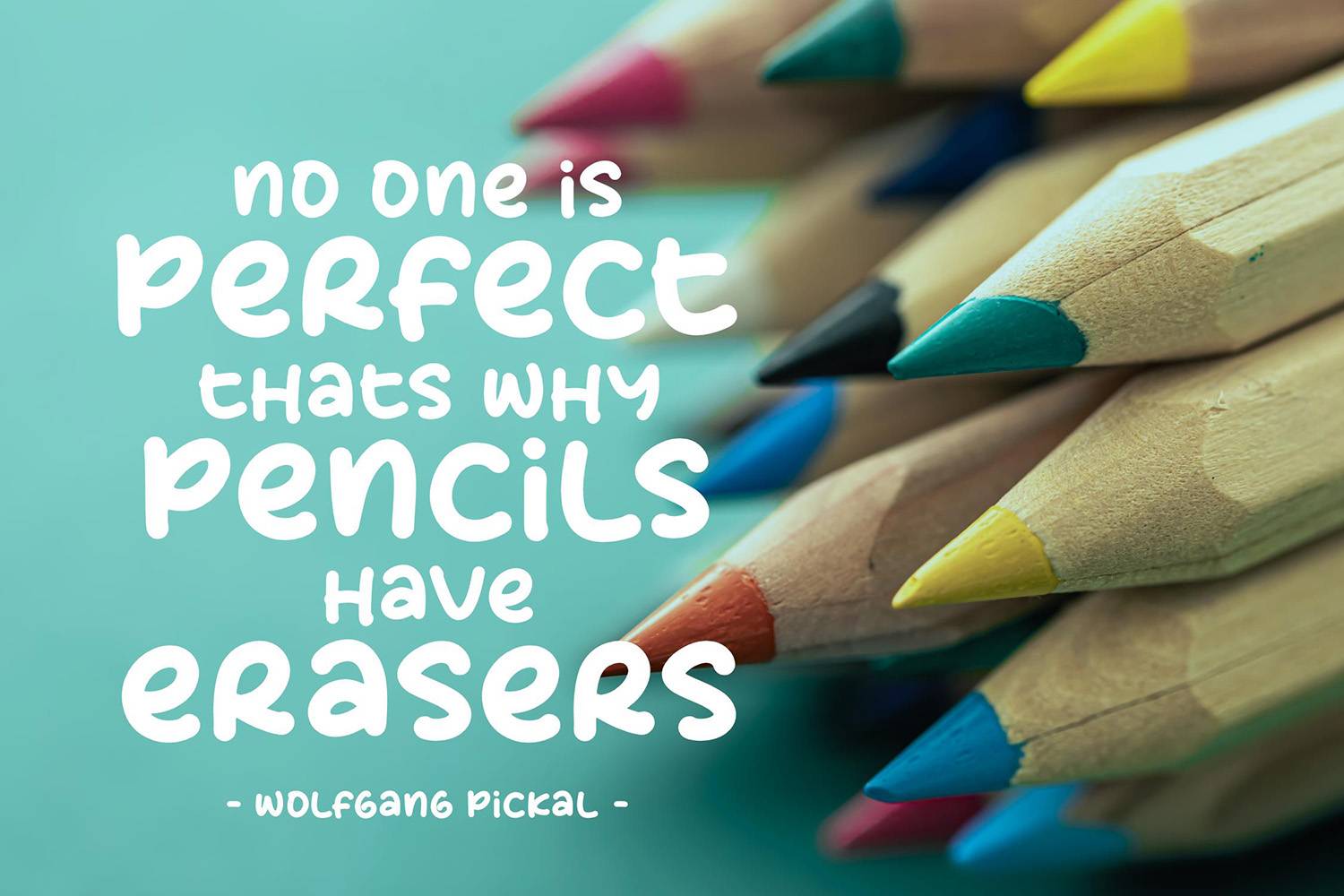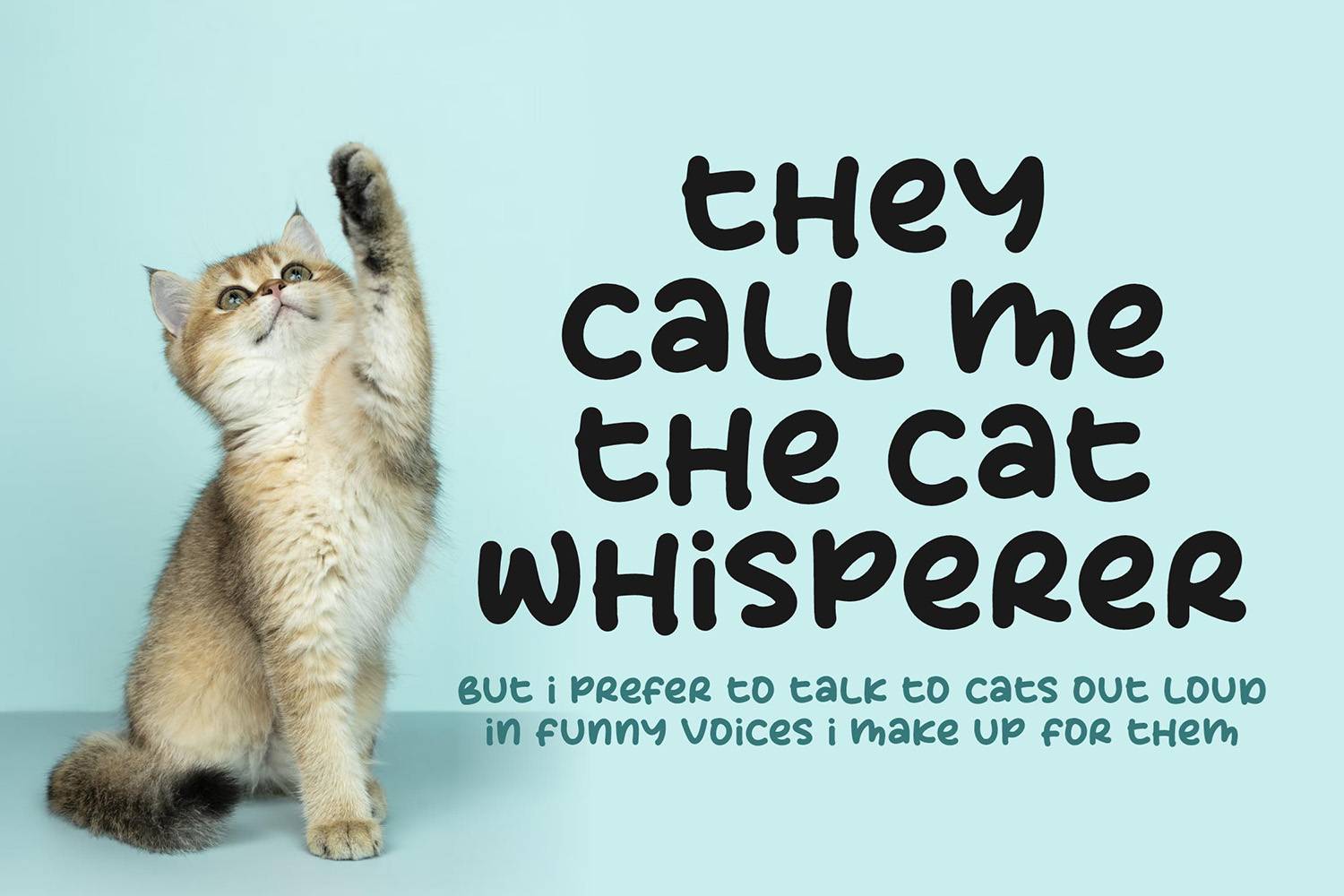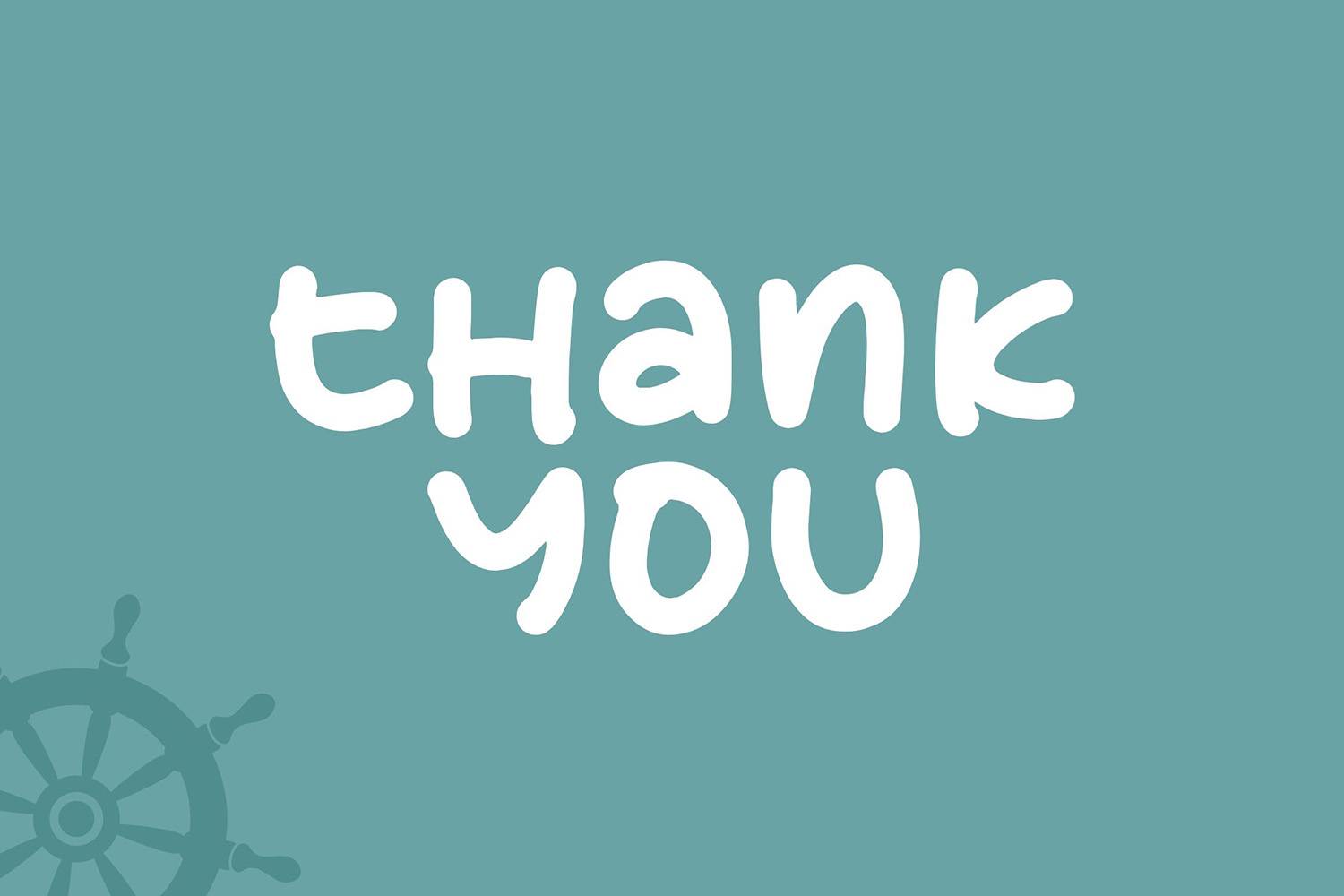
Captain Jacky is a playful, casual sans serif font with a friendly, handwritten feel. Its rounded, bold letterforms and lively irregular shapes give it a warm and approachable personality, making it ideal for children’s books, fun branding, and informal designs. This font works best in headlines and display uses where a cheerful, inviting vibe is desired.
Captain Jacky Font
About Captain Jacky Font